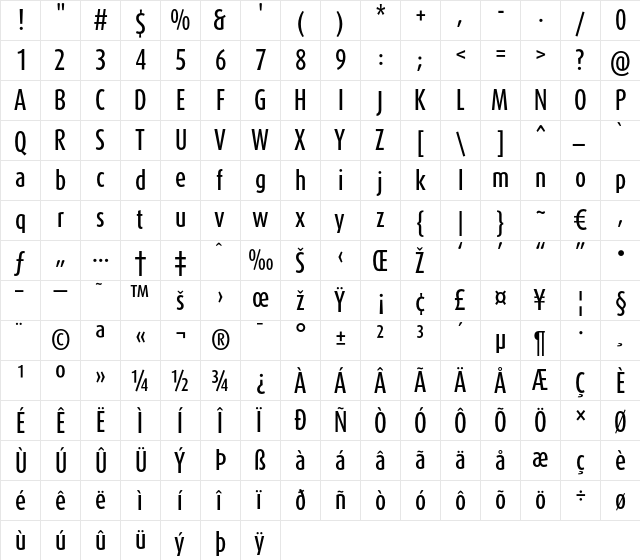
DaxCompact-Medium Regular Font Preview
DaxCompact-Medium Regular
DaxCompact-Medium Regular Font Details
Design Context for DaxCompact-Medium Typeface
DaxCompact-Medium takes a measured approach to typography — its balanced proportions and neutral character make it a reliable workhorse for both digital and print work. The condensed width makes it efficient for tight spaces without sacrificing legibility.